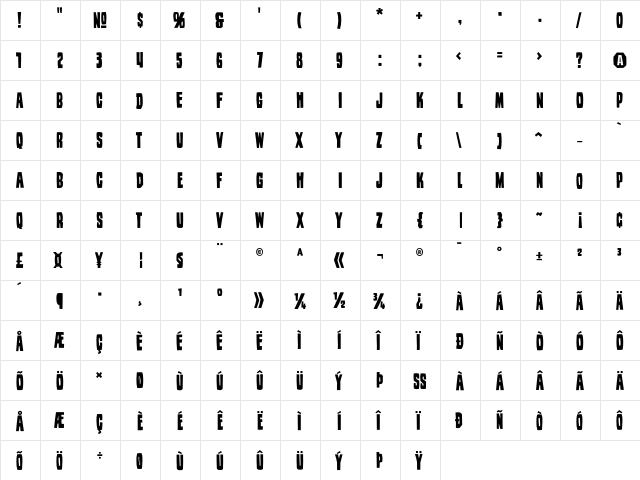
Wood Stamp Regular
| Foundry | Ryoichi Tsunekawa |
| Designer | Ryoichi Tsunekawa |
Design Context for Wood Stamp Typeface
Wood Stamp echoes the hand-painted signage and woodblock typography of the American frontier, with a warm, rugged personality.
Perfect for barbecue restaurants, country music branding, vintage poster design, and rustic packaging.
Font Pairing: Combine Wood Stamp with a simple slab or neutral sans — period-accurate companions reinforce the vintage feel without competing for attention.
Pro Tip: Pair Wood Stamp with aged textures or distressed backgrounds to amplify its vintage personality.